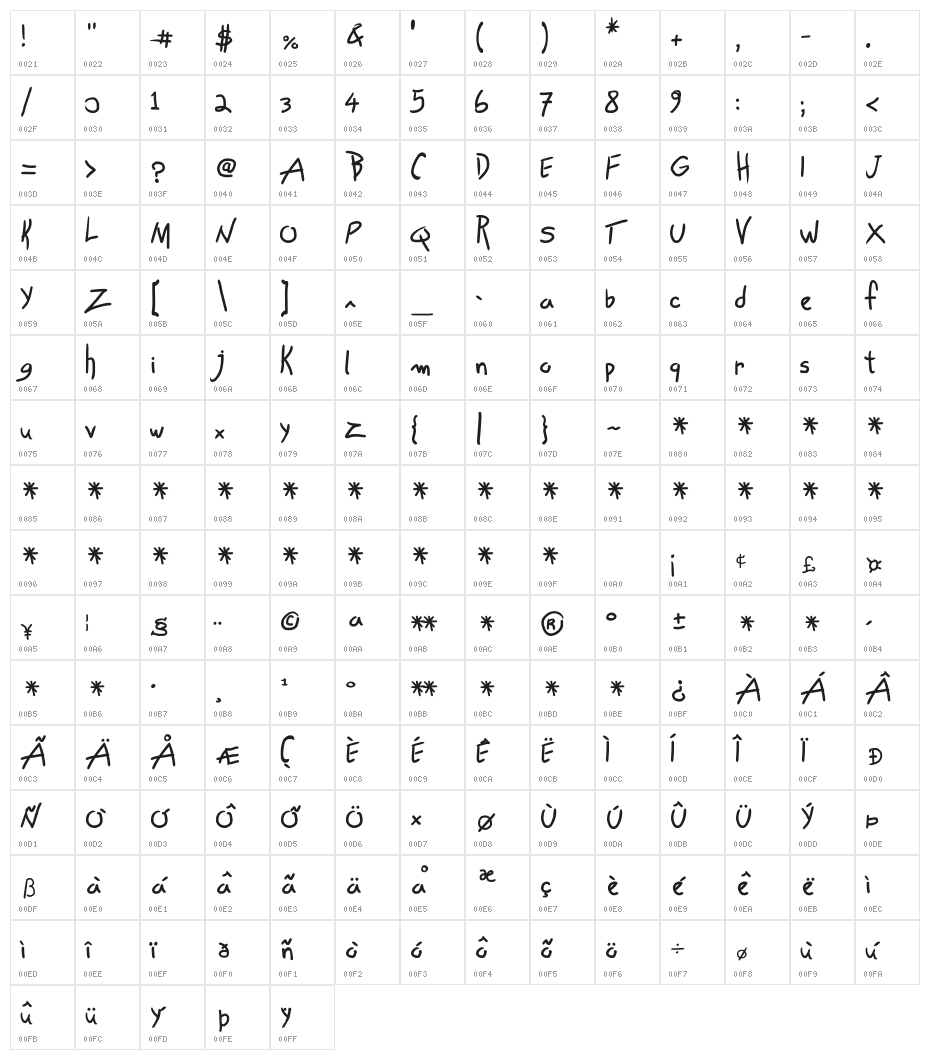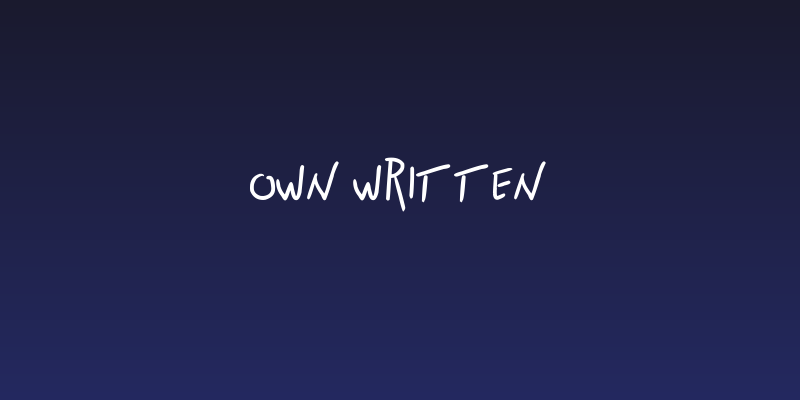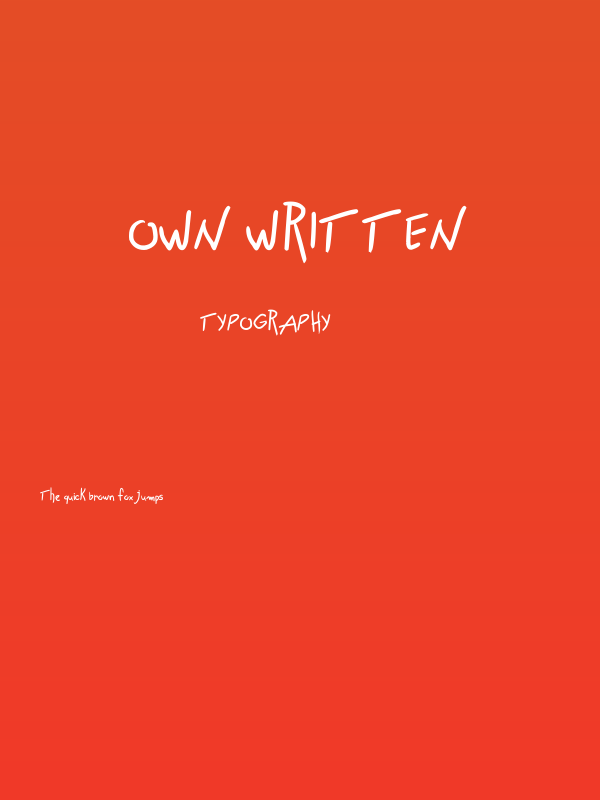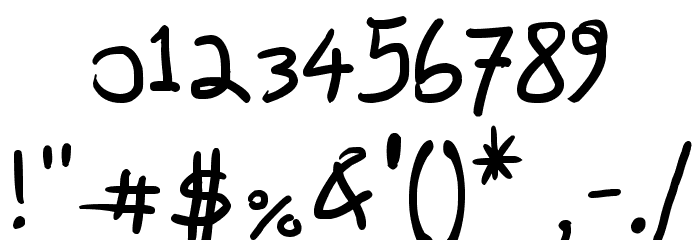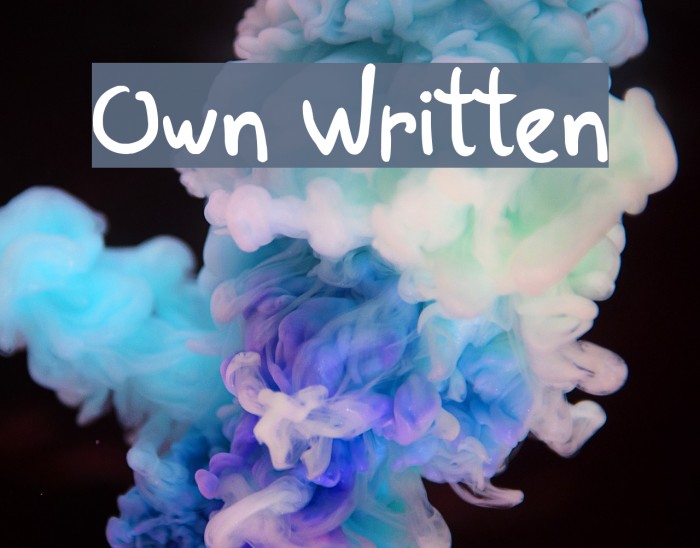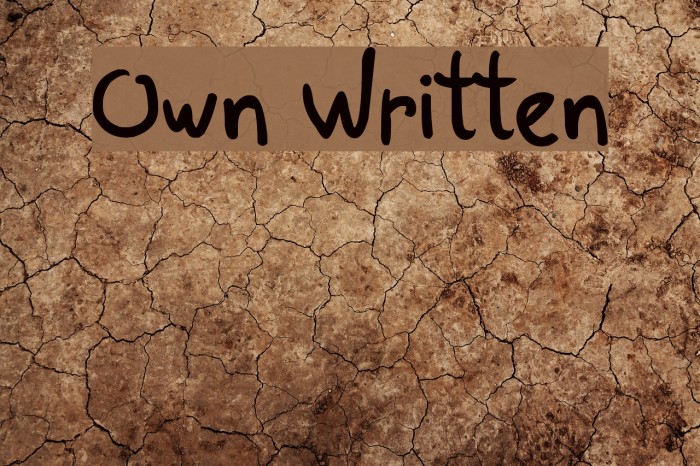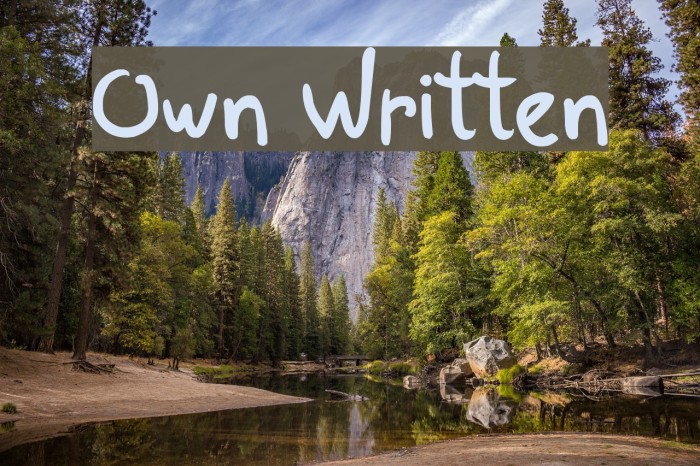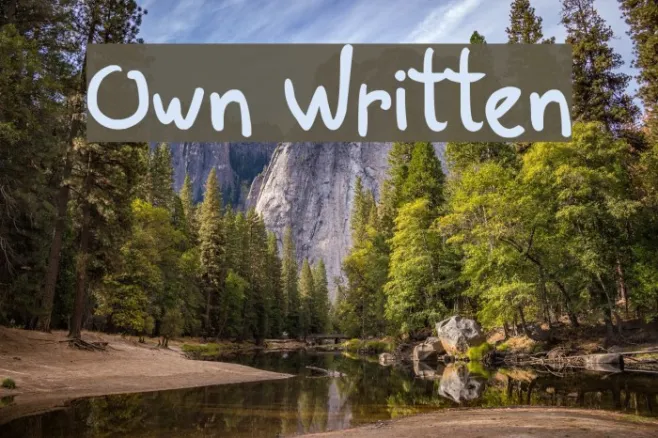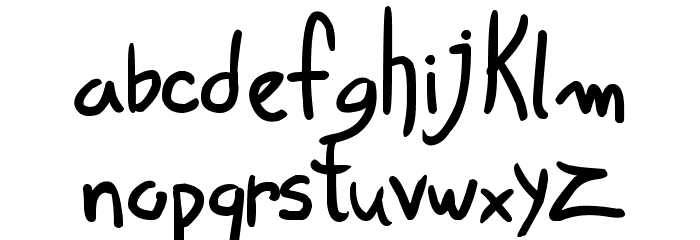
Own Written Font
Own Written Description
This font features a playful and casual handwritten style, characterized by its uneven strokes and slightly irregular letterforms. The uppercase letters are bold and dynamic, while the lowercase letters maintain a consistent flow, adding to the informal aesthetic. Numbers and special characters are crafted with the same lively energy, making them stand out with their unique shapes. The overall appearance is approachable and friendly, suitable for projects that require a personal touch. The font's informal nature makes it ideal for creative and artistic applications.
| Use Case | Headlines, Creative projects, Informal communications |
| Proposed Projects | Ideal for greeting cards, children's books, personal blogs, and creative branding projects. |